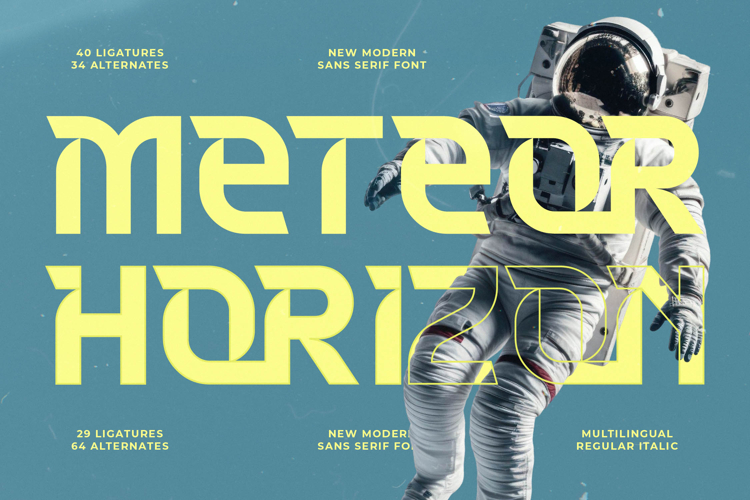
Meteor Horizon - Modern Sans Serif Font
Unleash a new era of design with Meteor Horizon - Modern Sans Serif Font, a typeface engineered for instant impact and modern appeal. This distinctive sans serif offers a bold, contemporary aesthetic, blending geometric precision with uniquely soft curves. Perfect for projects demanding a fresh yet authoritative voice, its clean lines and confident structure immediately capture attention, establishing a strong visual identity.
Discover the immense creative flexibility embedded within Meteor Horizon - Modern Sans Serif Font. Boasting an impressive collection of ligatures and alternates, this font provides unparalleled customization, allowing designers to craft truly unique typographic compositions. Each character is meticulously shaped for optical balance and legibility, while stylistic variations offer a dynamic range for expressive headlines and impactful branding.